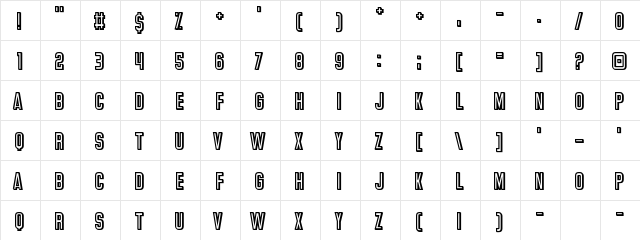
Great Attraction Regular
| Designer | NAL |
Design Context for Great Attraction Typeface
Great Attraction is a composed and adaptable typeface that performs quietly and consistently across a wide range of design contexts.